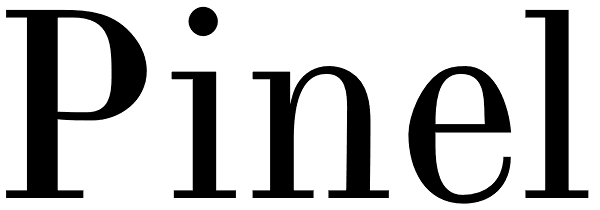
Pinel Pro
The characteristic ‘French face’ was originally made in 1899 under the supervision of Joseph Pinel. Thus, what was originally French 10 pt. Nº 2, got its present name. The Frenchman Joseph Pinel called himself a "typographical engineer", but was at...
Pinel
Pinel Italic